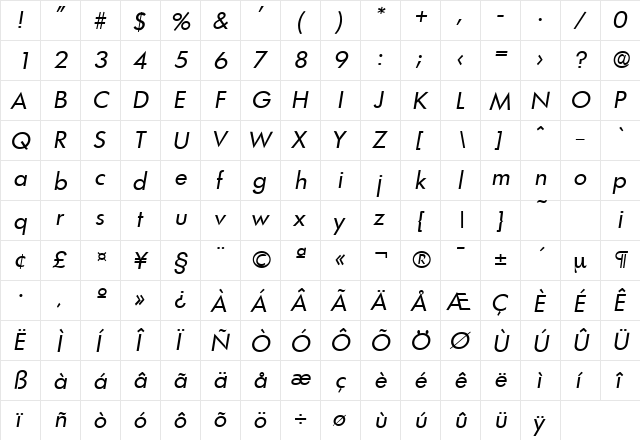
Design Context for Limerick-Serial Typeface
Limerick-Serial is a composed and adaptable typeface that performs quietly and consistently across a wide range of design contexts. The dynamic lean of this cut emphasises speed and emphasis in any layout.
Pro Tip: Try Limerick-Serial for annotation and caption copy alongside an upright companion — the contrast in angle creates a dynamic but ordered typographic system.